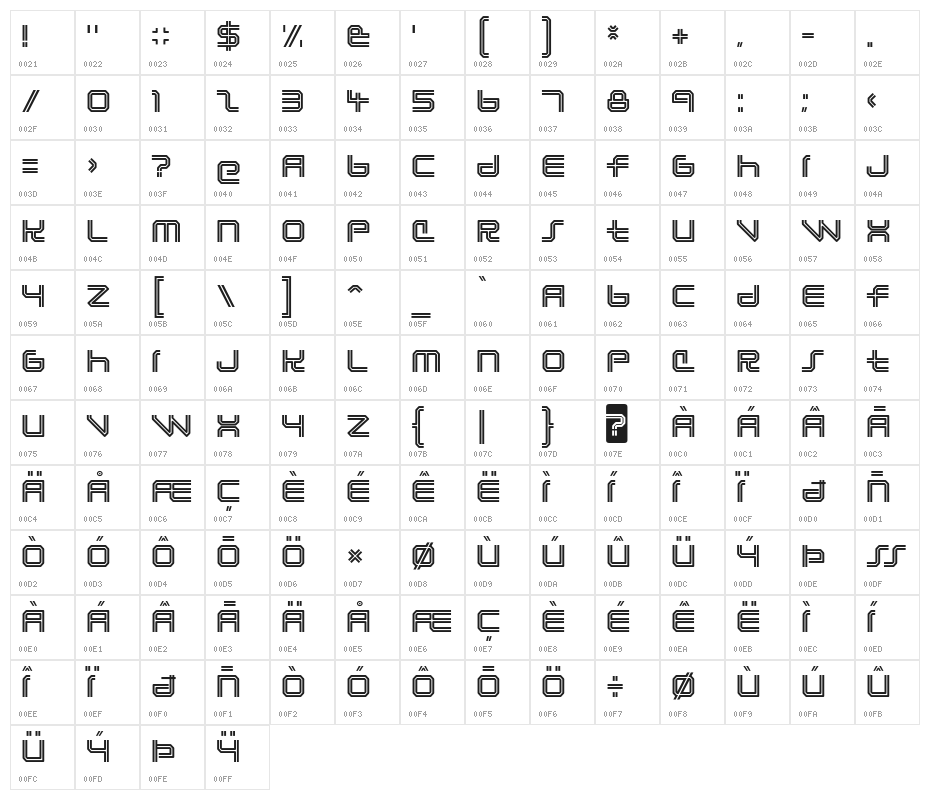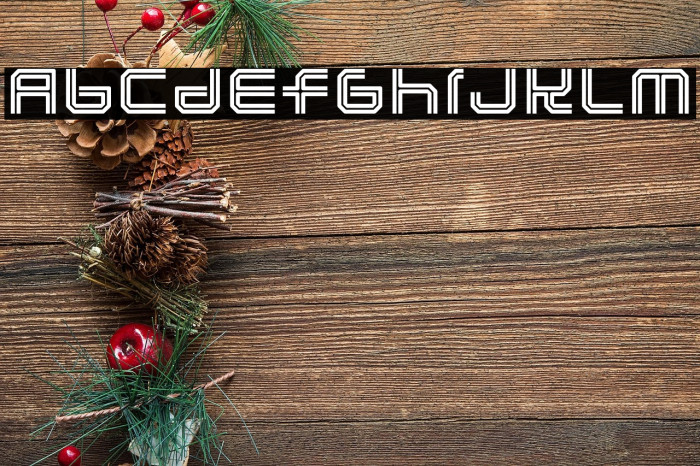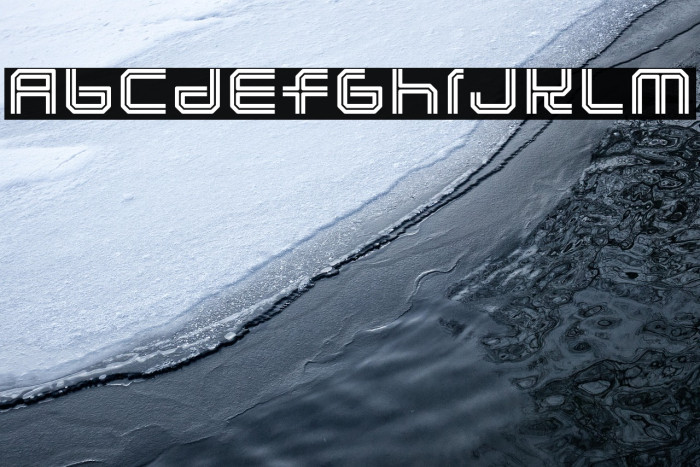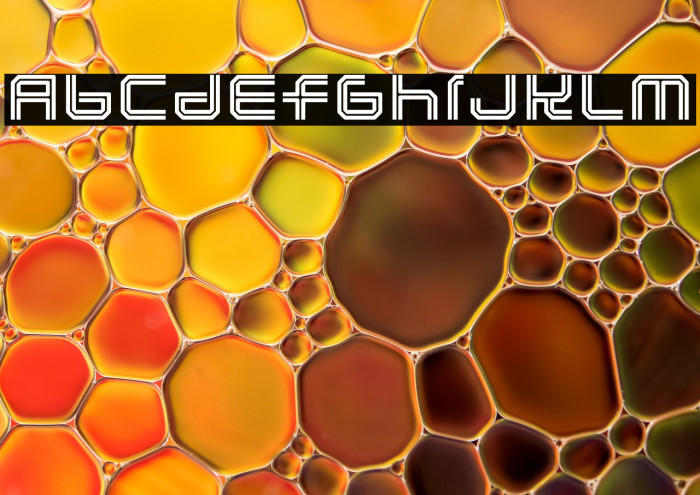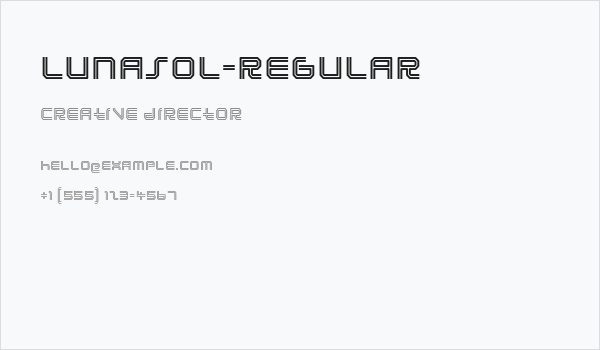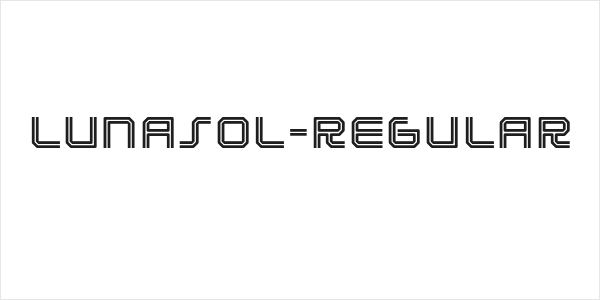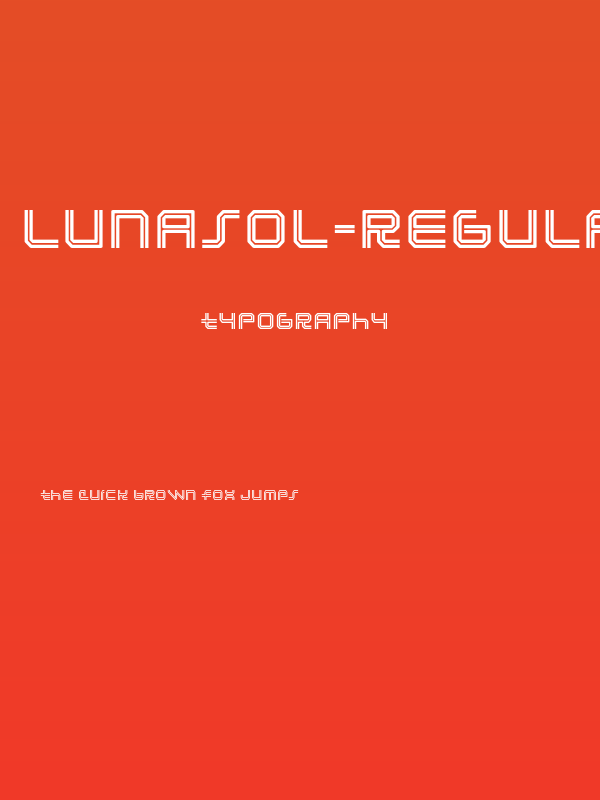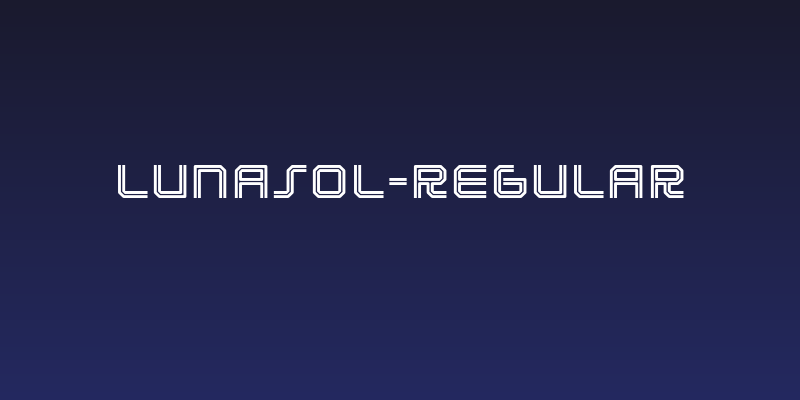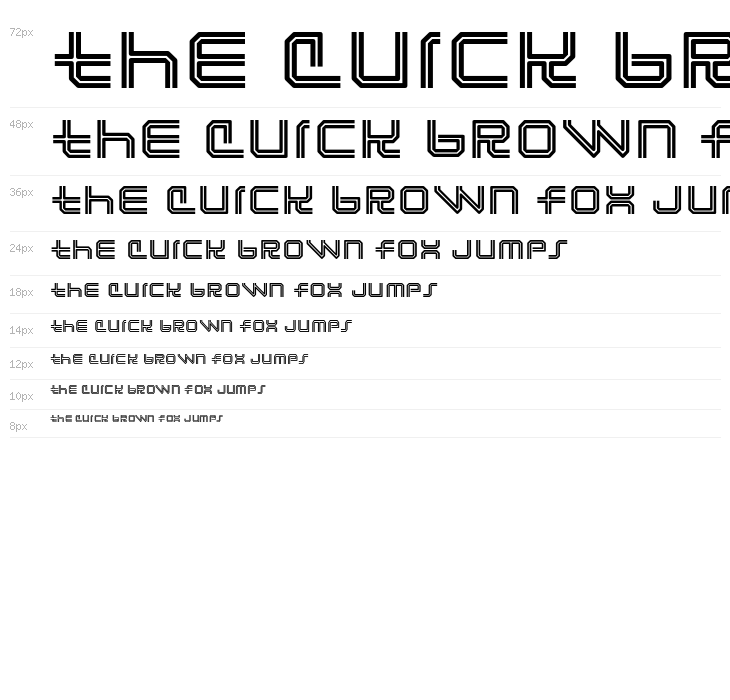
Lunasol-Regular Font
Lunasol-Regular Description
This font features a geometric and futuristic design, characterized by its distinct double-line structure that creates a sense of depth and dimension. The characters are constructed with sharp angles and clean lines, giving it a modern and technical appearance. The uppercase and lowercase letters maintain a consistent style, with a uniform height and width that enhances readability. The numerals and special characters follow the same design principles, ensuring a cohesive look across all elements. This font is ideal for projects that require a contemporary and innovative aesthetic.
Proposed ProjectsIdeal for tech branding, sci-fi themed designs, video game interfaces, and modern advertising.